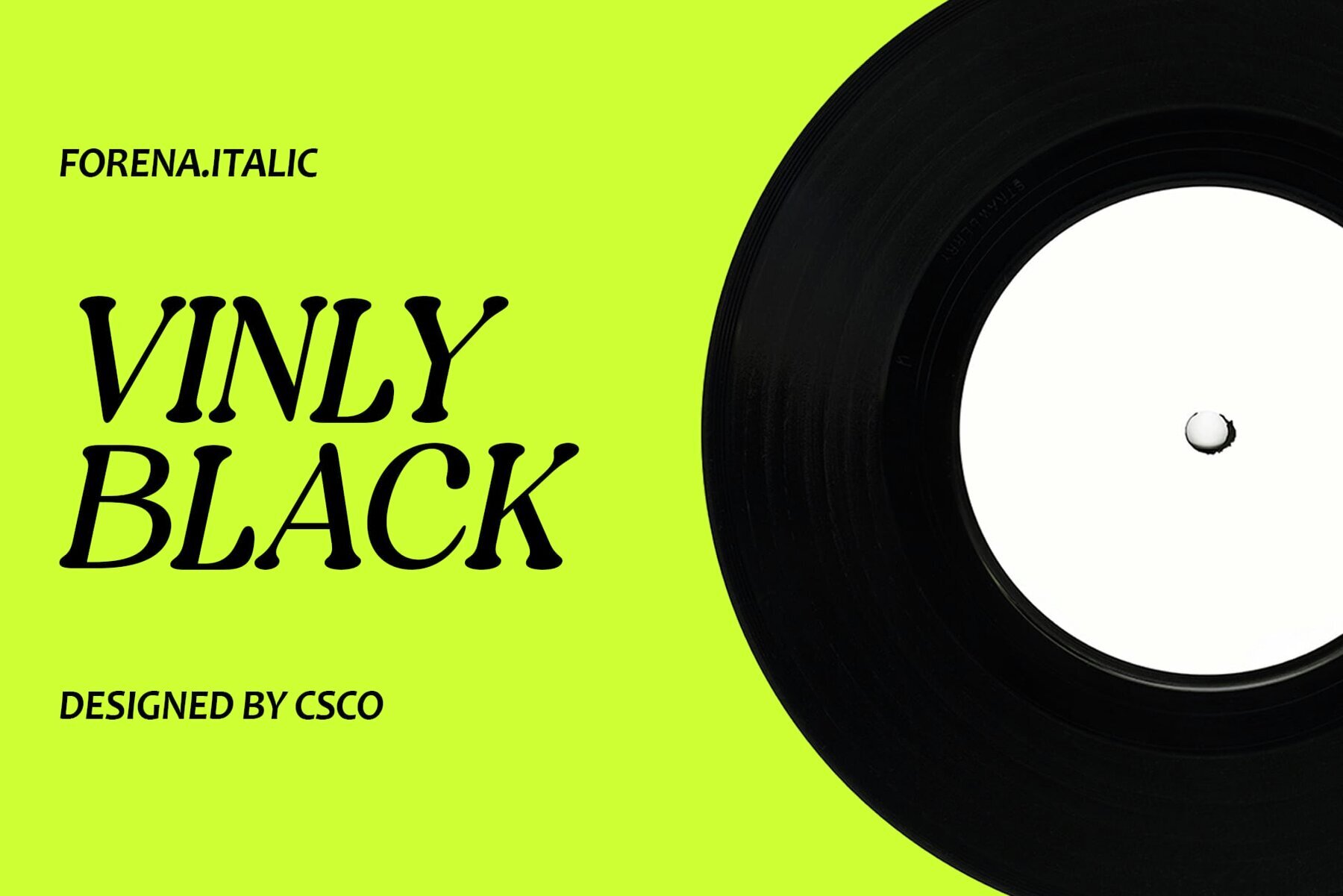
Forena Font
Forena – Round Serif is a sophisticated typeface that marries modern design with timeless elegance. Its sleek aesthetics make it an ideal choice for designers seeking a contemporary serif style with a charming allure. This typeface presents a sleek and contemporary design, seamlessly blending modern sophistication with a classic touch. With its high-contrast design, Forena exudes elegance and refinement, making it perfect for projects demanding sophistication. The uniquely rounded serif details of Forena add warmth and approachability to its modern design. Forena is suitable for a wide range of applications, including branding, editorial design, and digital platforms. It offers versatility and elegance in every use. Forena – Round Serif epitomizes modern elegance with its sleek design and high contrast. Its rounded serif details ensure a touch of refinement, resulting in a timeless and elegant project outcome. You can use this typeface without needing any specialized software. If you have any inquiries or need assistance, please feel free to contact us. We appreciate your support in enhancing your creative projects!Forena: A Modern Round Serif with Elegance
Sleek Modern Design
High Contrast Elegance
Rounded Serif Details
Versatile Application